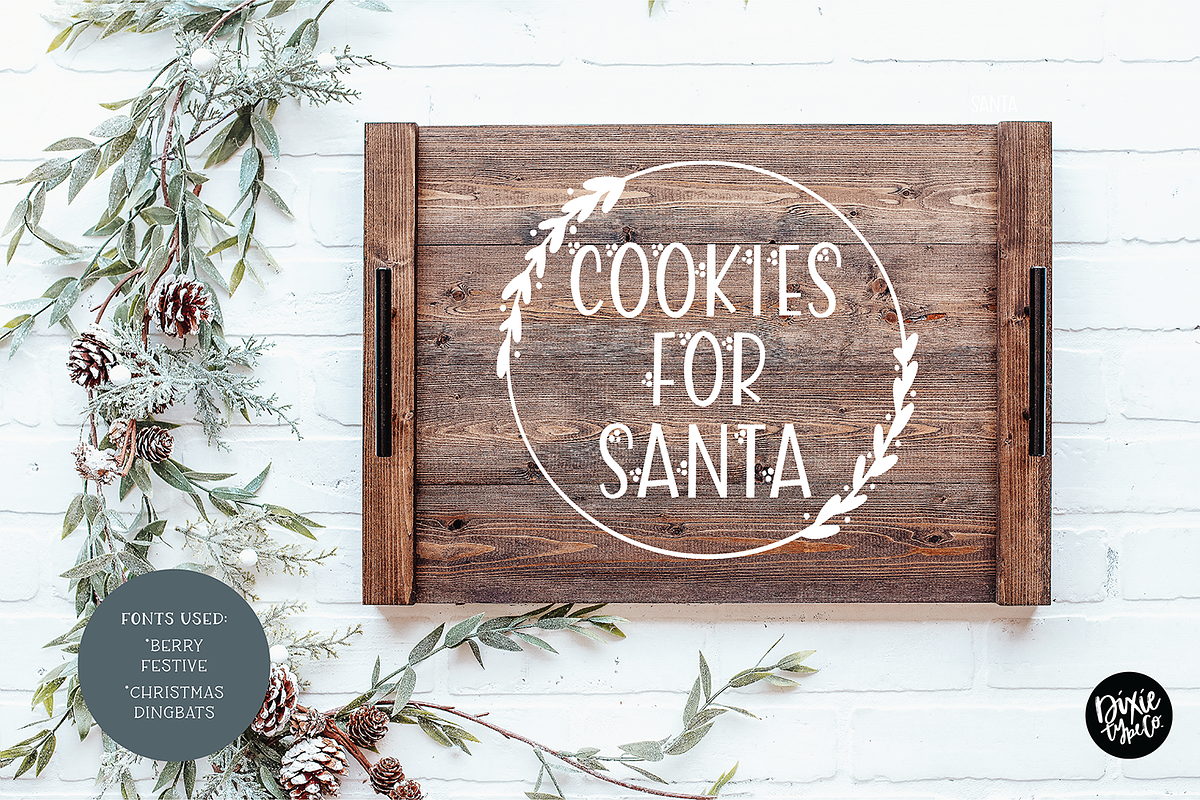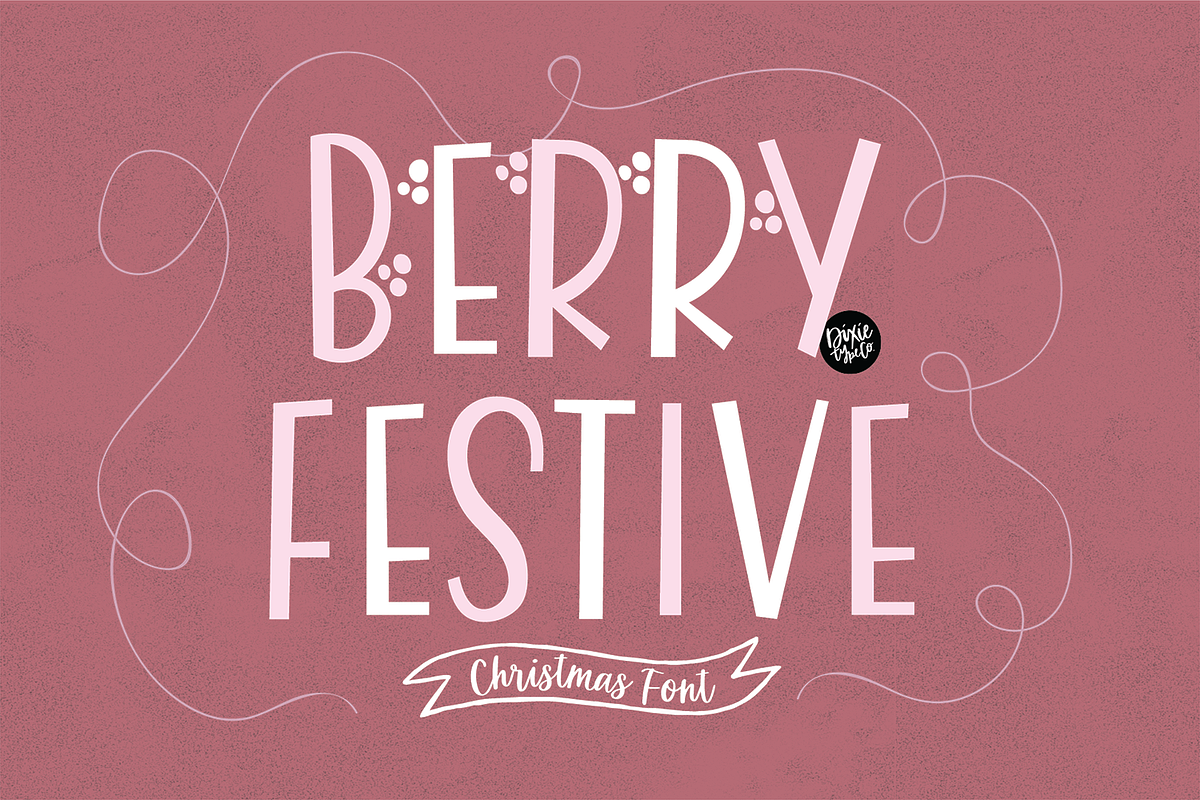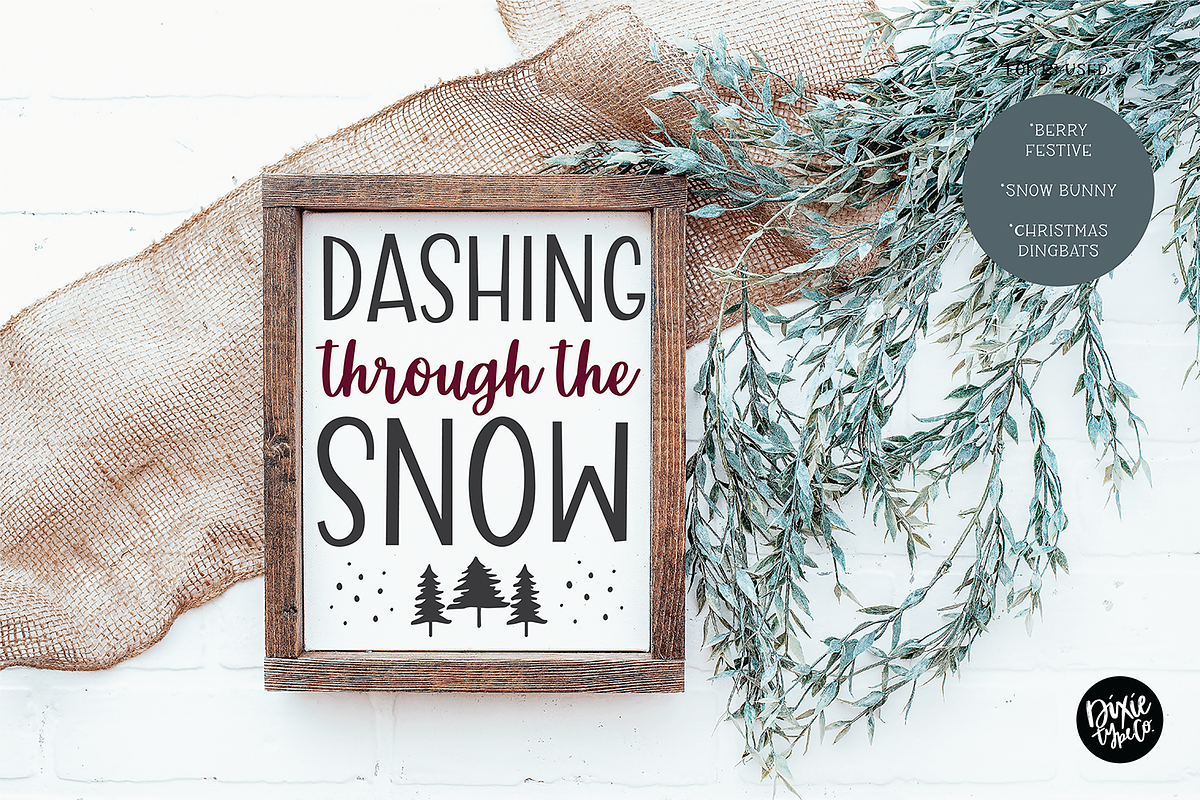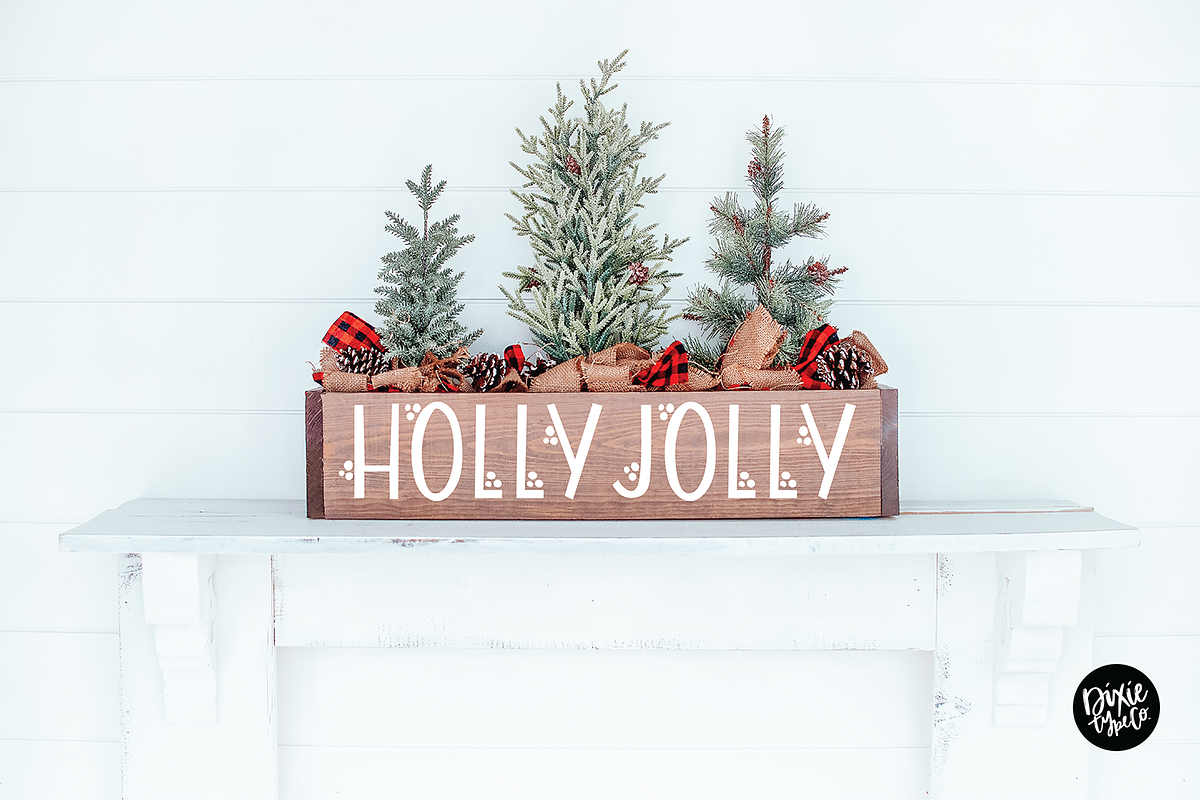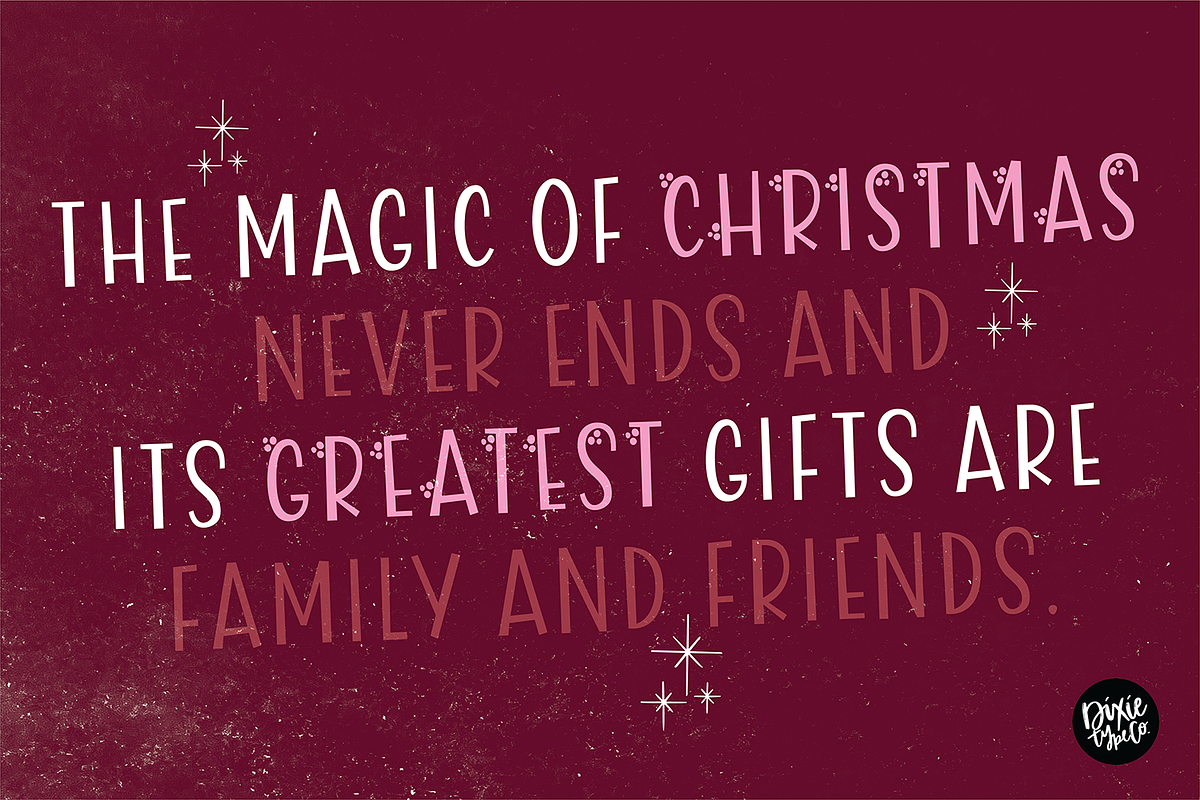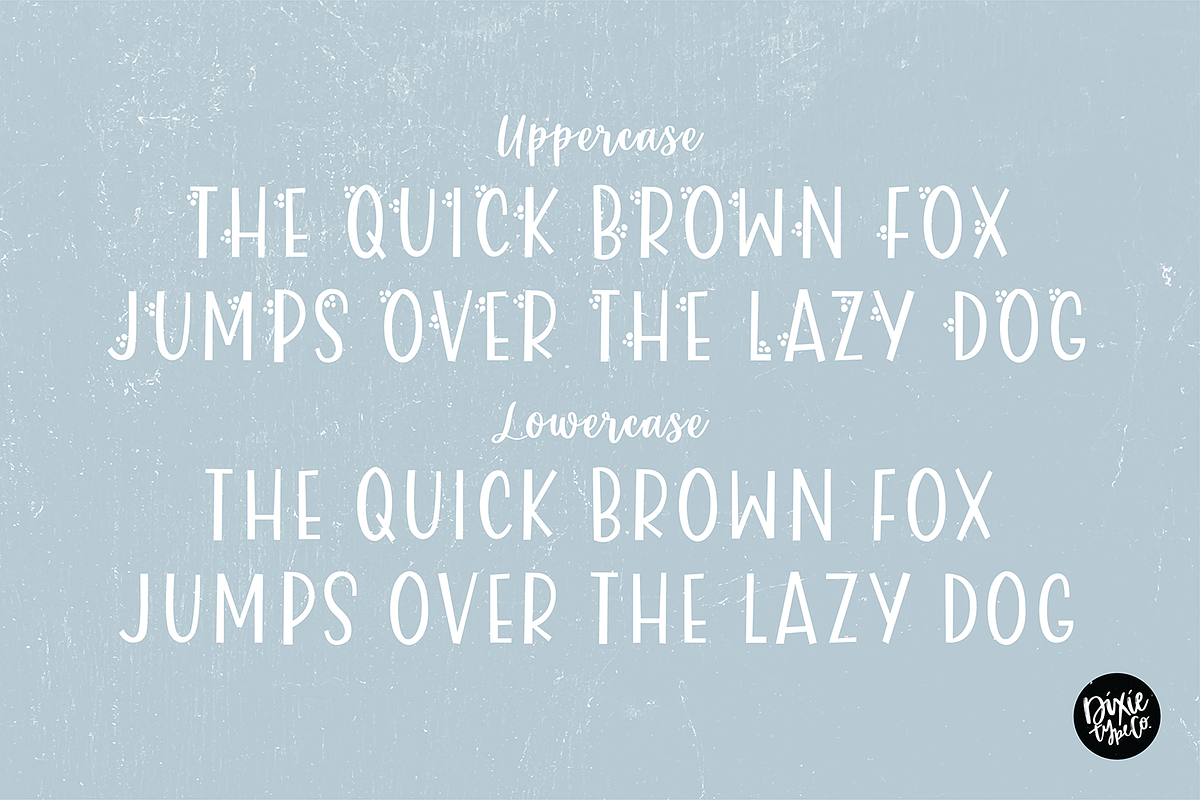
BERRY FESTIVE Farmhouse Christmas
"BERRY FESTIVE" a holly berry Farmhouse Christmas/Winter font
{ A typographic font hand lettered with love by Dixie Type Co. }
Berry Festive is great for your holiday projects. Use it for christmas cards, winter crafts for decor and more! This font includes numbers and basic punctuation.